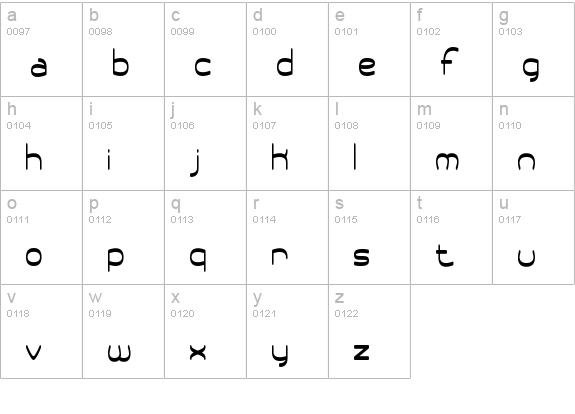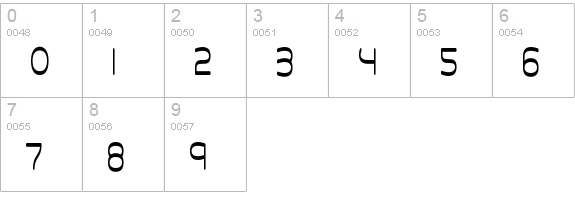
Pneumatics Tall BRK Font Details
Pneumatics Tall BRK is a modern and stylish font that exudes a sense of sophistication and elegance. With its tall and sleek letterforms, this font is perfect for creating eye-catching headlines, titles, and branding materials. The clean lines and sharp angles of Pneumatics Tall BRK give it a contemporary and futuristic look that is sure to make your designs stand out. The best part about Pneumatics Tall BRK is that it is completely free to download at FontsMarket.com. This means that you can add this stunning font to your collection without having to spend a penny. Whether you're working on a personal project or a professional design, Pneumatics Tall BRK is a versatile and high-quality font that will take your work to the next level. Download it today and start creating beautiful and impactful designs with ease.